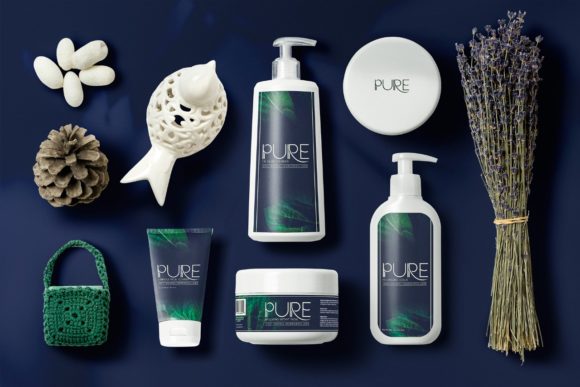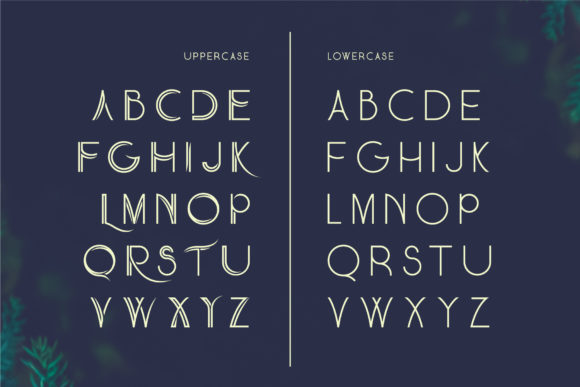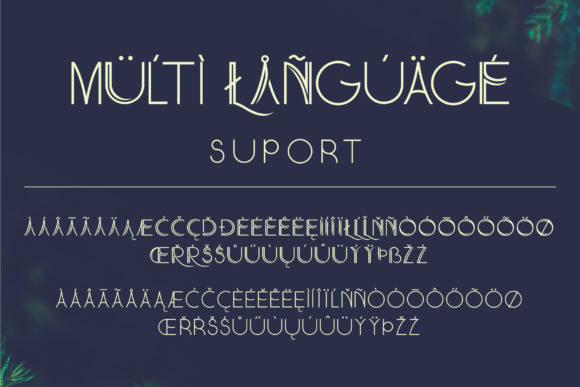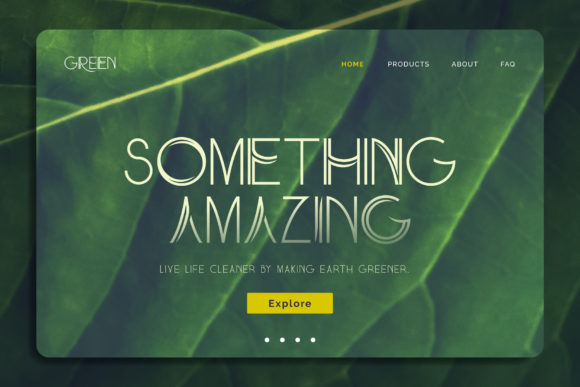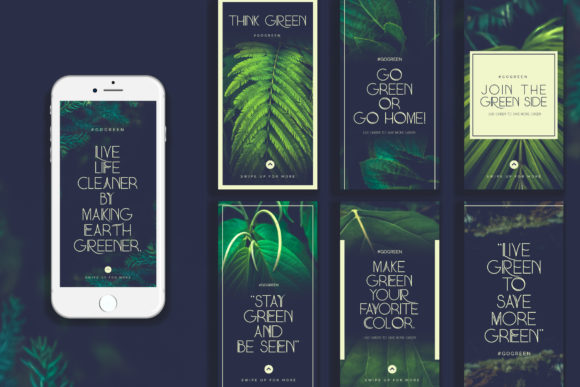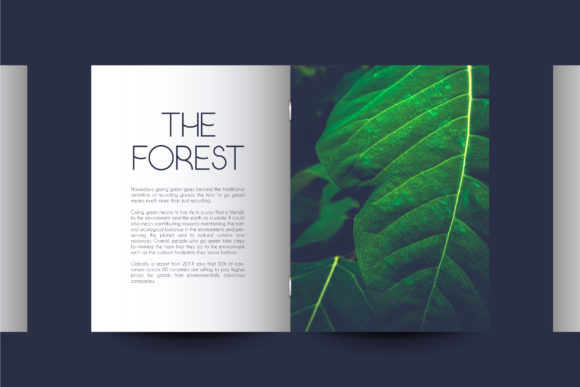
Introduction to Latone Font
Latone is a beautiful and stunning display font with an incredible feel.
Get inspired by its sophisticated and charming style .